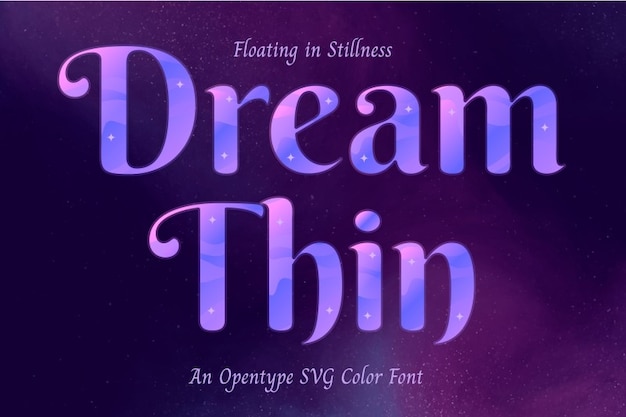
Dream Thin
Dream Thin Font
Dream Thin is a light, airy font with a whisper-like weight and dreamy design. Great for poetry, wellness content, or anything that wants to feel minimalist, peaceful, and ethereal.